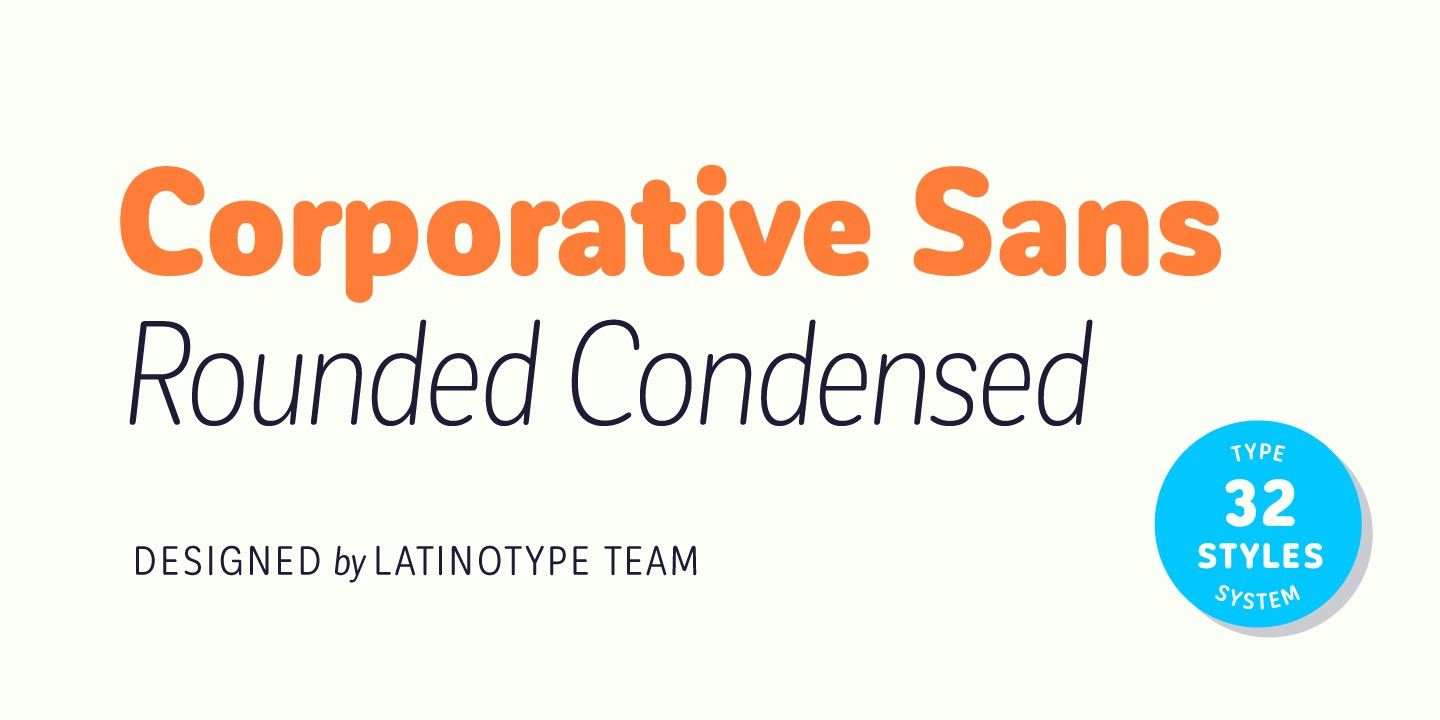
Corporative Sans Round Condensed Font Family
Corporative Sans Round Condensed Font Family is a distinctive and expressive font crafted to bring personality, structure, and creative energy into your projects. Corporative Sans Rounded Condensed is the narrowed version of Corporative Sans Rounded that offers high performance when using for text, what makes it the perfect match for Andes Rounded. The font works well at both display and small sizes. Corporative Sans Rounded Condensed is the perfect choice for logotypes, posters, signs, branding, packaging and so on! Corporative Sans Rounded Condensed comes with Latinotype’s standard set of 350 characters, making it possible to use the font in 128 different languages. Corporative Sans Rounded Condensed provides users with a wide range of characters and weights for every project. By combining different variants, designers can achieve the best results. The family consists of 32 fonts: a basic family that includes 8 weights plus italics and an alternative family of 8 weights with matching italics as well. Corporative Sans Rounded Condensed was created by Latinotype Team and developed by Elizabeth Hernández and Rodrigo Fuenzalida, under the supervision of Luciano Vergara and Daniel Hernández.
Designer: Luciano Vergara, Daniel Hernández, Latinotype Team